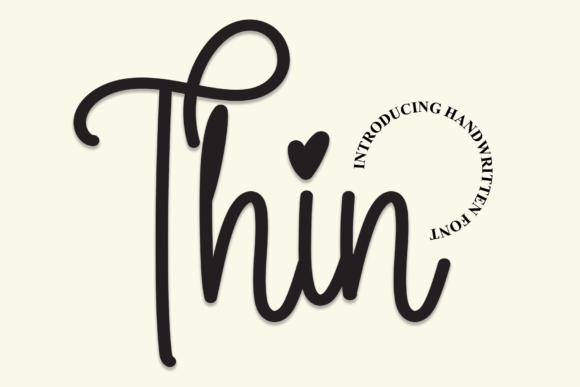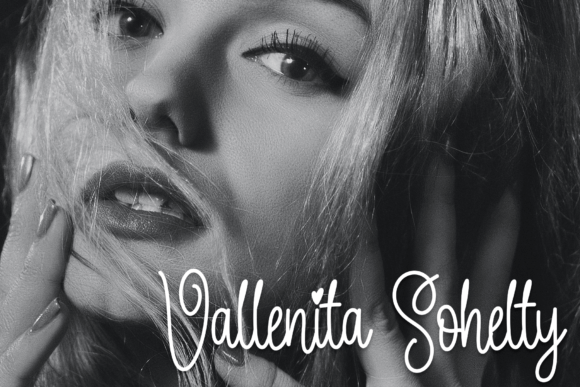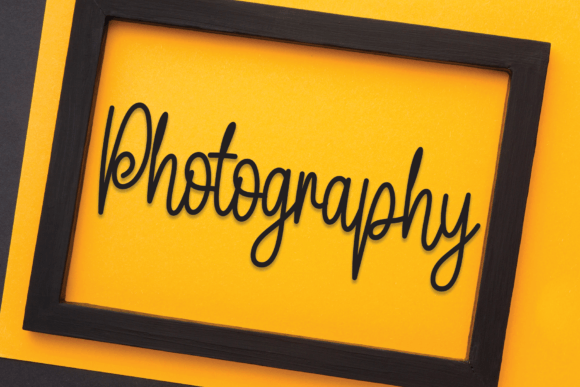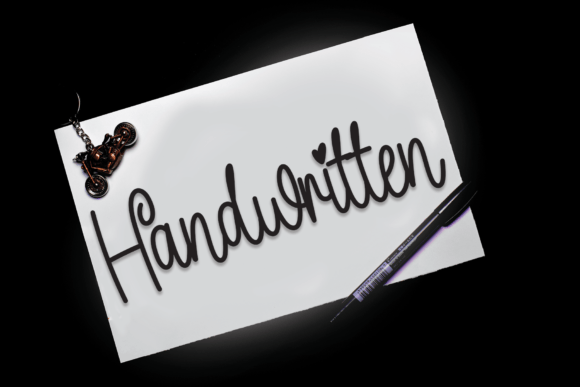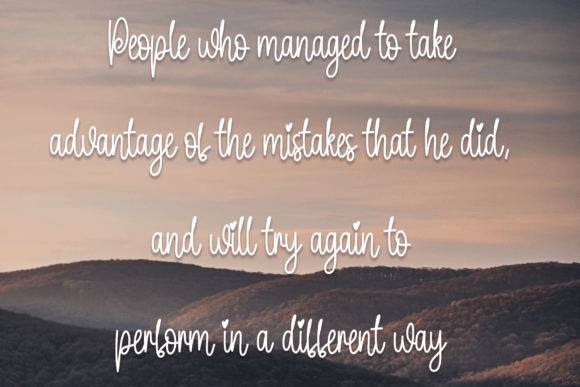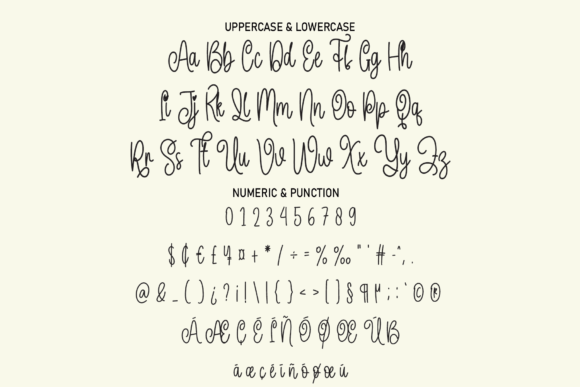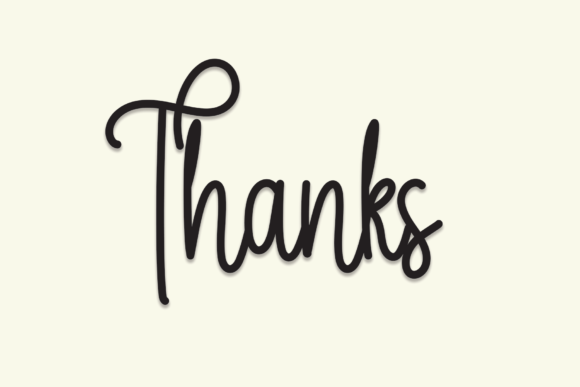
Thin Font
“Thin’s” latest style letters offer a versatile and elegant solution for a wide range of design projects. Their blend of contemporary sophistication and handwritten charm makes them a valuable asset for any creative endeavor that requires a personal and refined touch.
Whether you’re aiming to create captivating wall displays, romantic wedding invitations, eye-catching social media post logos, effective advertisements, exquisite product packaging, or distinctive product designs and labels, these letters are the perfect choice. They have the power to elevate your designs and make them stand out in a crowded visual landscape.
For photographers and artists, “Thin’s” letters can serve as a graceful watermark, subtly signing and personalizing your work while adding an artistic and professional dimension.
In the realm of invitations and stationery, “Thin’s” letters enhance the elegance and uniqueness of your designs, making them ideal for formal events and heartfelt correspondence.
In essence, “Thin’s” latest style letters bring a sense of elegance, personality, and craftsmanship to your projects. They are the embodiment of contemporary style with a touch of handwritten warmth, making them an invaluable resource for anyone looking to infuse their creative work with sophistication and character.